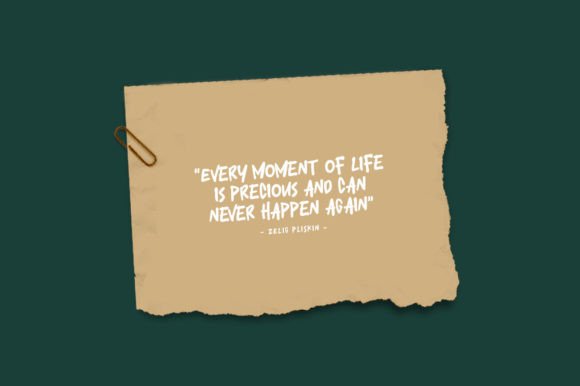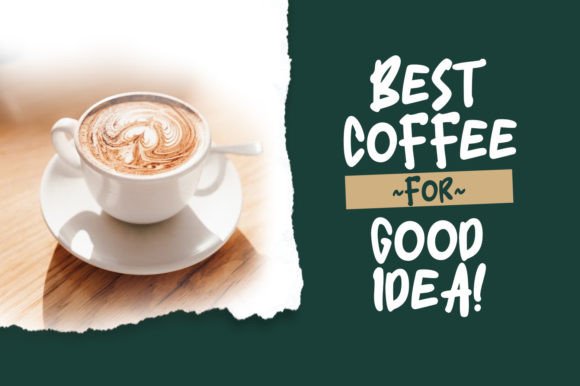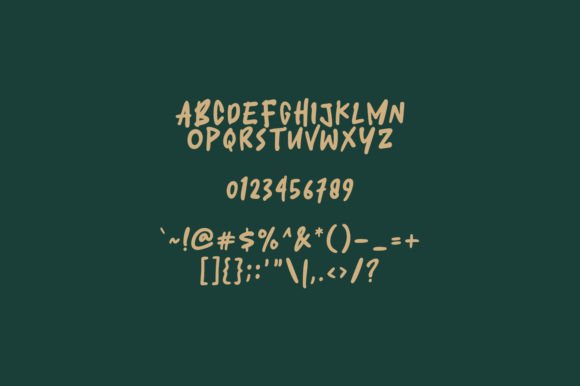
Introduction to Laziness Font
Have you ever found yourself staring at a blank canvas, desperately trying to come up with the perfect design for your latest project? You’ve scoured the internet for hours, searching for the perfect font to bring your vision to life. If this sounds like you, then you’re in luck! Today, we’re excited to introduce you to the Laziness Font, a stunning and versatile handwritten font that’s sure to elevate your creative projects.
Whether you’re a seasoned designer or just starting out, the Laziness Font is an invaluable addition to your design resource. With its modern and fancy aesthetic, it’s perfect for posters, logos, magazines, book covers, banners, and so much more. And the best part? It’s available for free download, making it an accessible and affordable option for designers of all levels.
What sets the Laziness Font apart is its high-quality design, which features a transparent background and a range of customizable options to suit your needs. Whether you’re working on a high-profile project or a personal creative endeavor, this font is sure to bring a touch of elegance and sophistication to your work.
Laziness Font Key Features
- Designed with a modern, minimalist aesthetic, the Laziness Font is perfect for branding, typography, and other creative endeavors.
- Part of a larger font family, offering a range of styles and weights to suit different design needs and preferences.
Honest Review: Laziness Font
As a designer, I’m always on the lookout for high-quality design resources to elevate my creative projects. I recently stumbled upon the Laziness Font, and I’m excited to share my thoughts on this free download.
- ✨ Unique and quirky design: The Laziness Font has a distinct, playful feel that’s perfect for adding some whimsy to your designs.
- ✨ High-quality glyphs: The font includes a wide range of glyphs, including numerals, punctuation, and special characters, making it a great choice for a variety of creative projects.
- ✨ Transparent background: This allows designers to easily place the font over any background, giving them full control over the design.
- ⚠️ Limited font weights: The Laziness Font only comes in a few font weights, which may limit its use in certain design applications.
- ⚠️ Not ideal for body text: Due to its playful design, the font may not be the best choice for large blocks of body text.
Overall, the Laziness Font is a great addition to any designer’s toolkit, offering a unique and high-quality design resource for creative projects. While it may have some limitations, its quirky design and high-quality glyphs make it a worthwhile download.
Laziness Font
The Laziness Font is a unique design resource perfect for creative projects that require a touch of humor and whimsy. This high-quality font features a transparent background, making it easy to customize and integrate into various design platforms.
Tips for Getting the Most Out of the Laziness Font
To get the most out of the Laziness Font, experiment with different font sizes, colors, and combinations. Use the font in conjunction with other design elements to create a visually appealing and humorous design.
The Laziness Font is perfect for creative projects that require a touch of humor and whimsy, such as social media graphics, blog posts, and marketing materials.